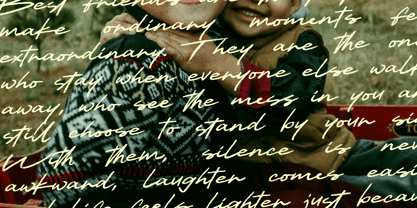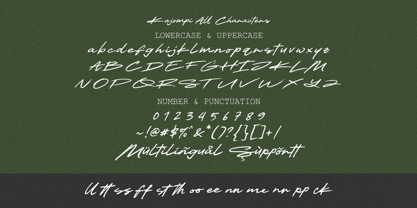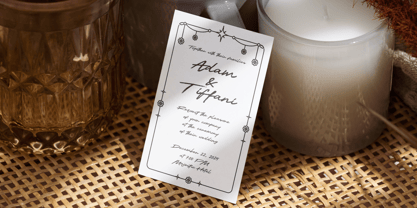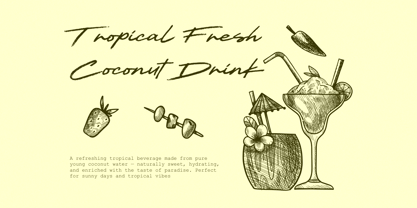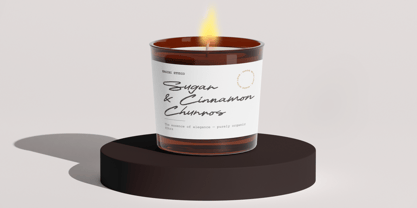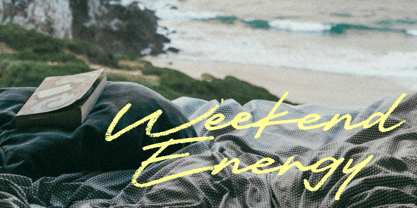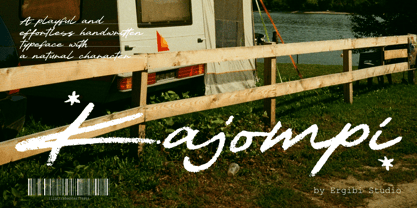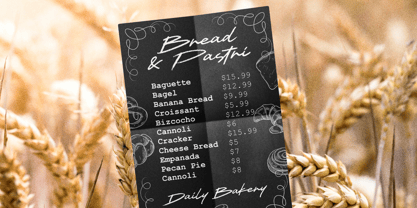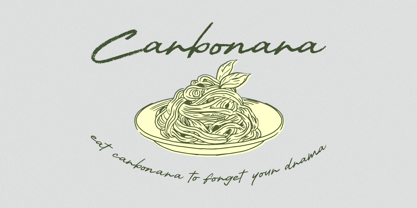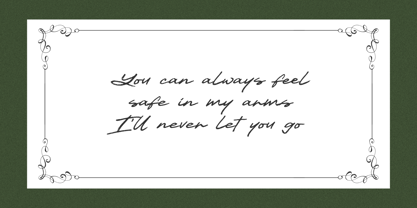
Kajompi
by Ergibi Studio
The Kajompi Font Family was designed by Riyadh Rahman and published by Ergibi Studio. Kajompi contains 1 styles. More about this family
Introducing Kajompi, a natural handwritten font designed to bring warmth and authenticity to your creative projects. Every stroke feels organic and effortless, giving your designs a truly personal touch. This font is perfect for branding, invitations, greeting cards, posters, packaging, social media, and more. Whether you’re crafting a cozy home décor piece or designing a heartfelt message, Kajompi adds that soft, handwritten charm that makes every project feel special. Use Kajompi to create logos, wedding invitations, birthday cards, product packaging, quote prints, and anything else your creativity desires. Make your work beautifully unique and full of character with this lovely handwritten style. if you have any questions, don’t hesitate to contact us Ergibi Studio
Designers: Riyadh Rahman
Foundry: Ergibi Studio